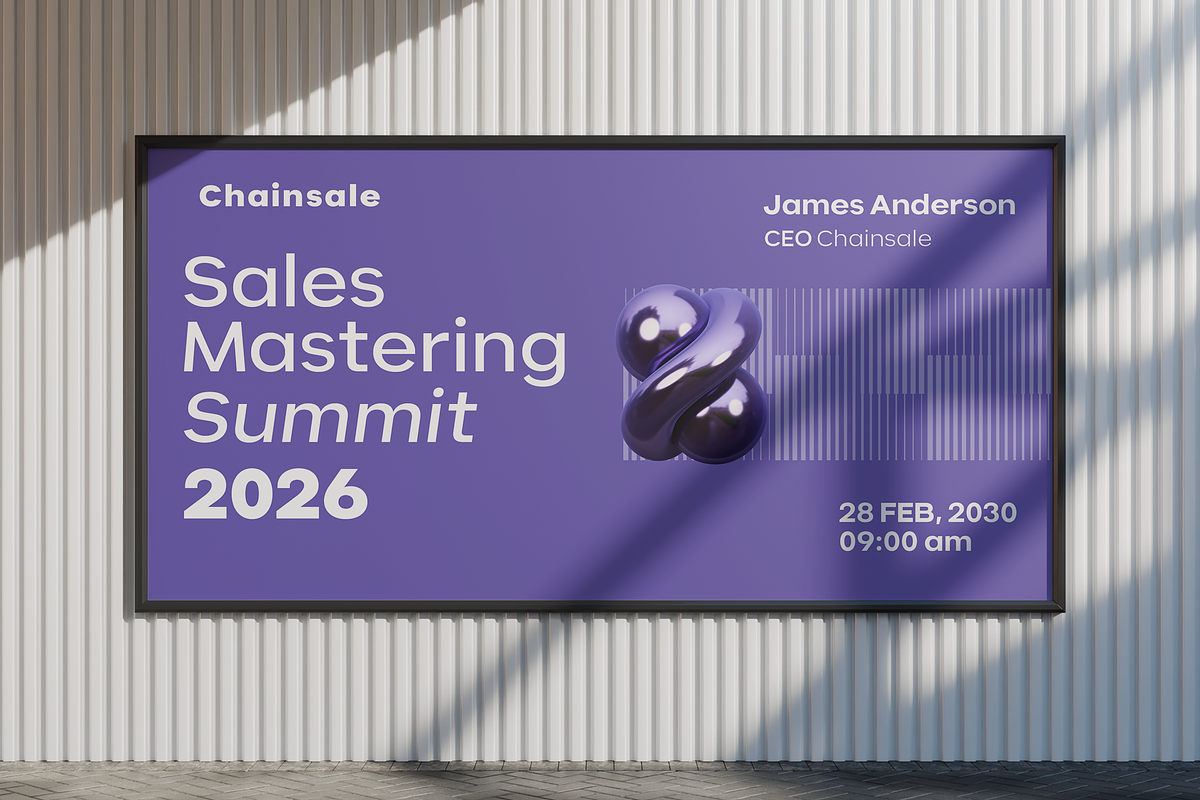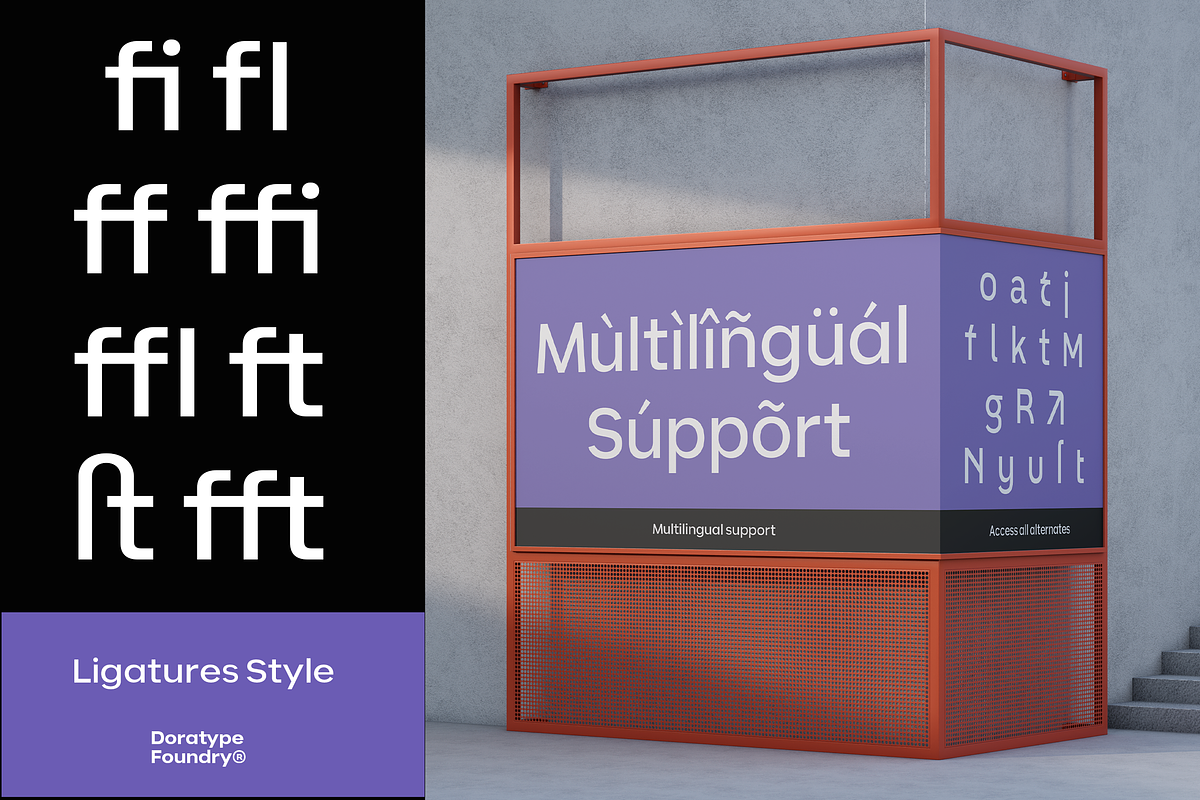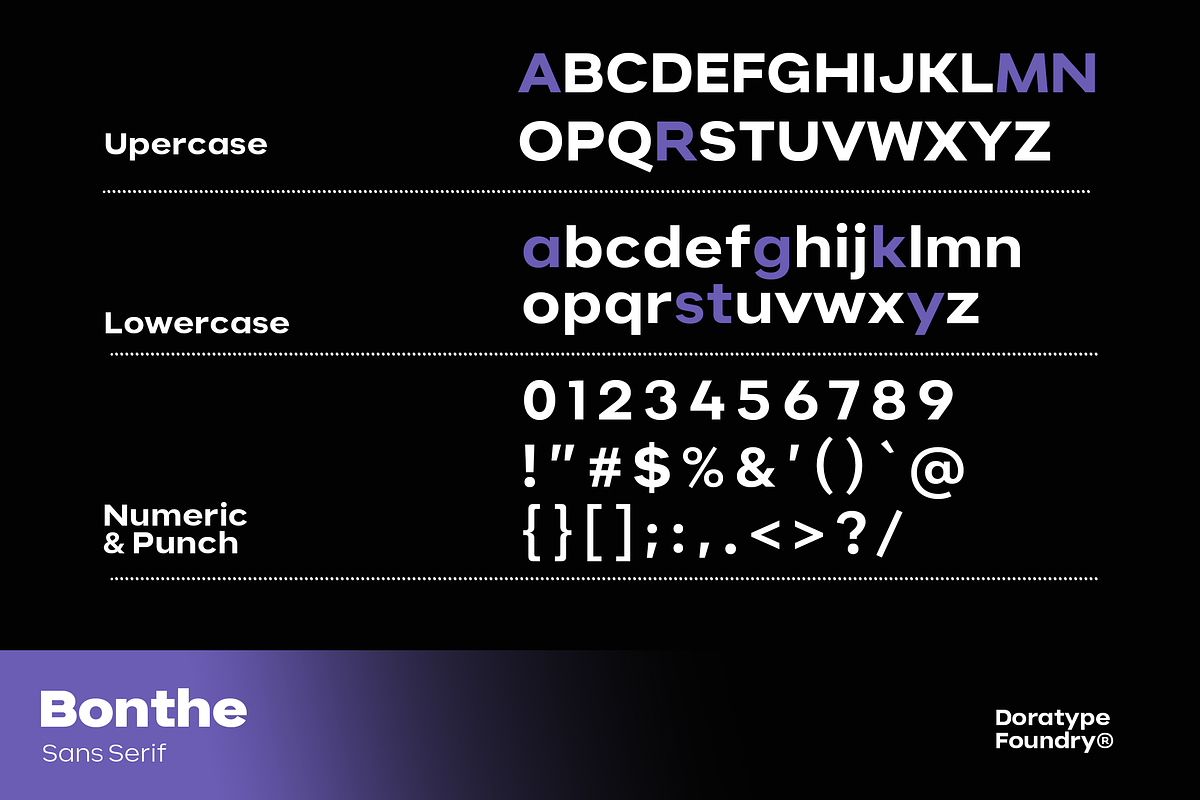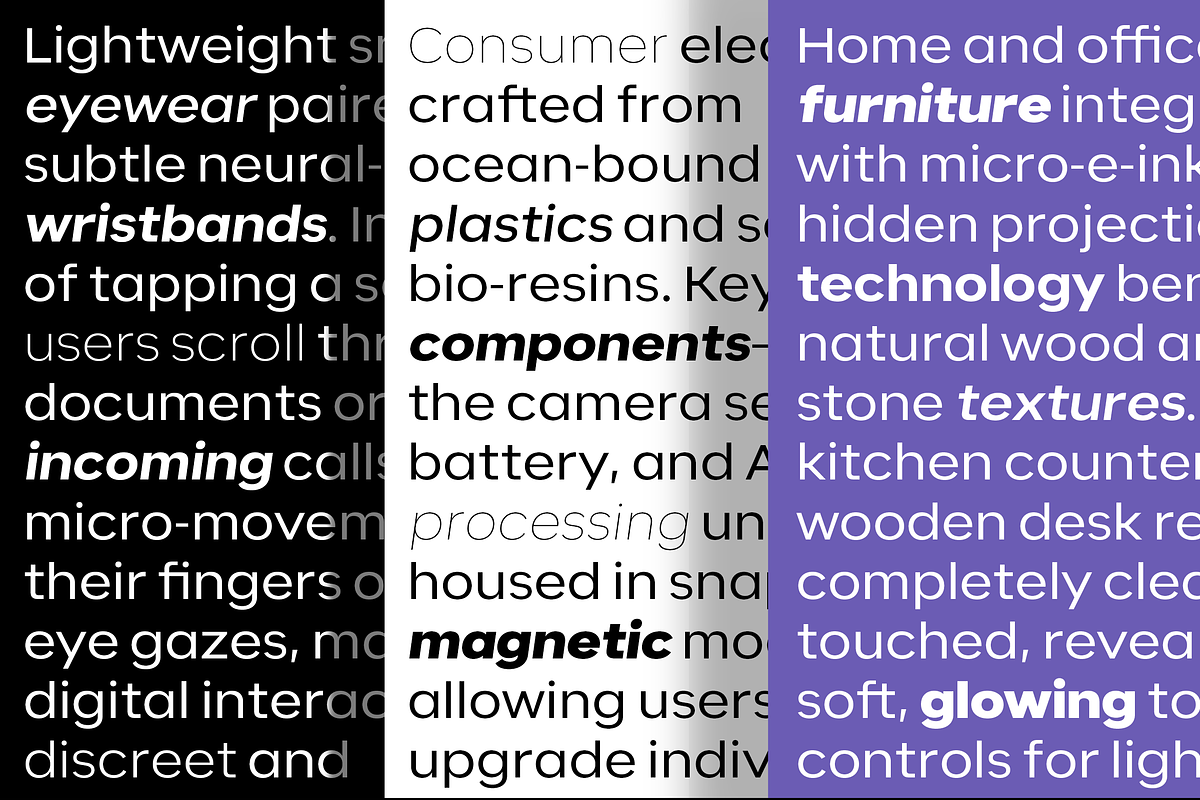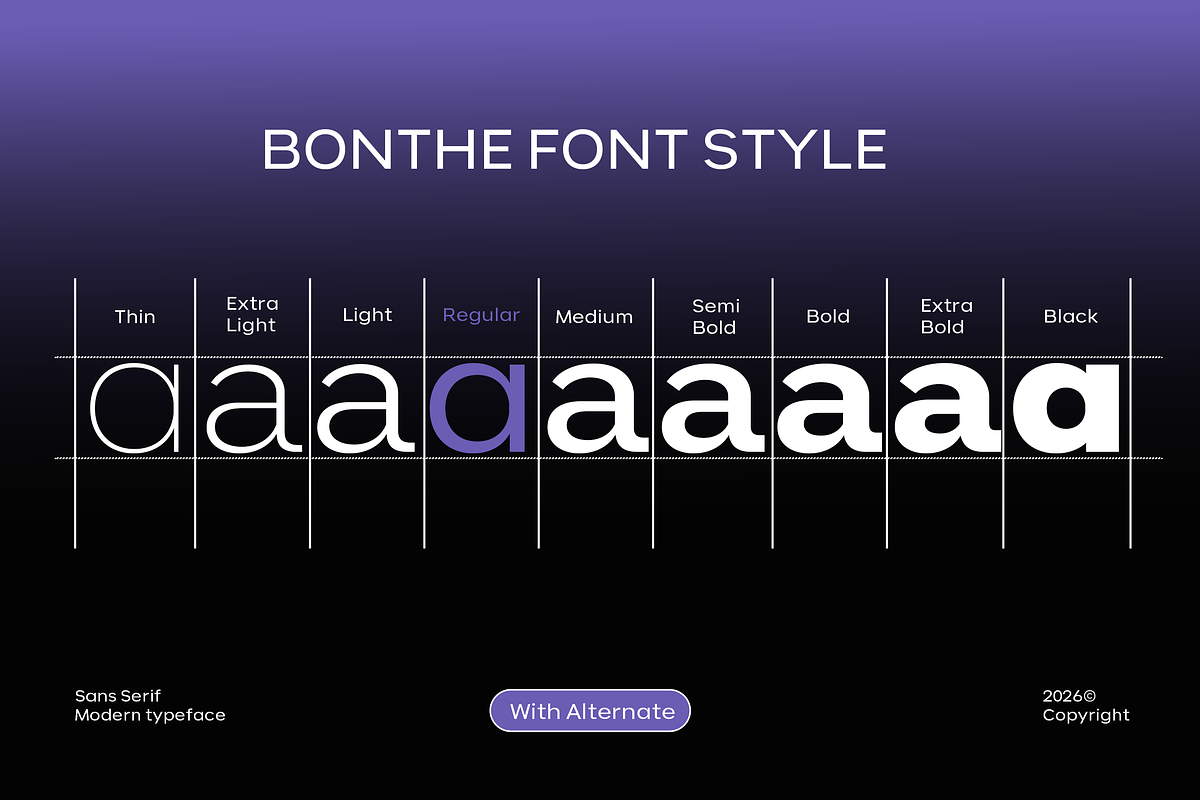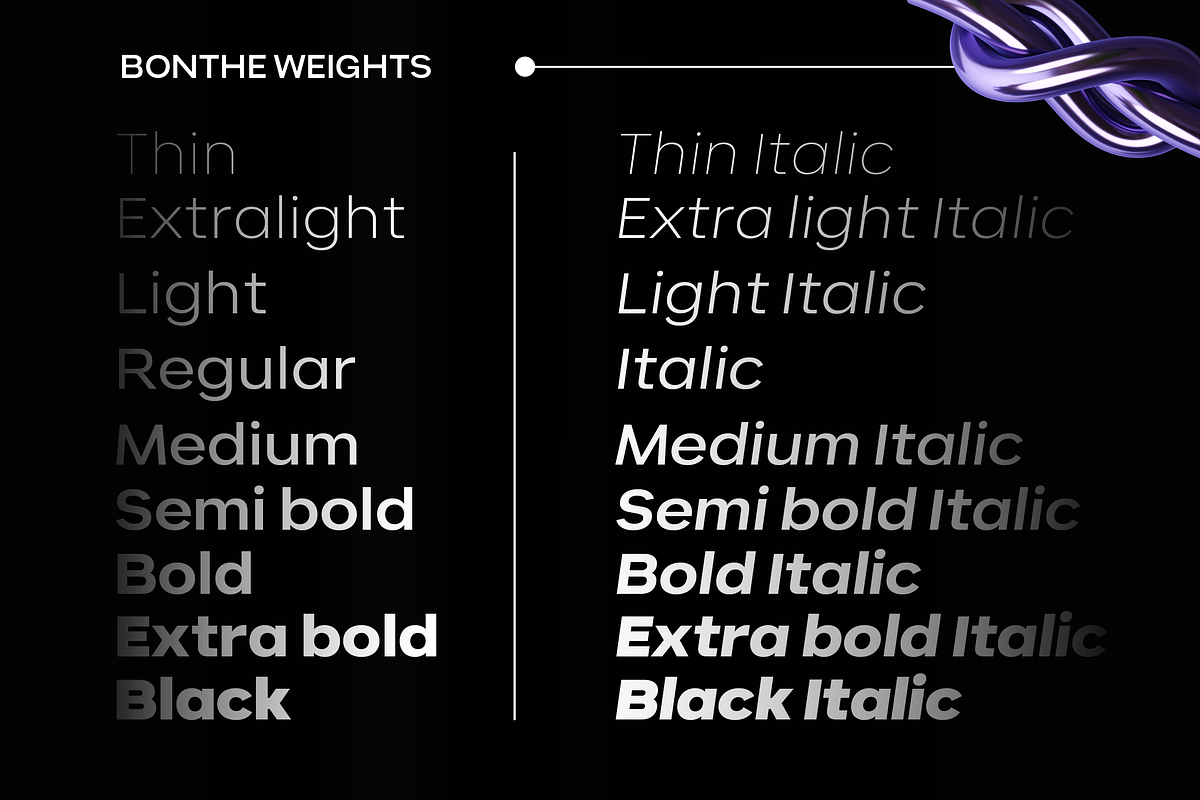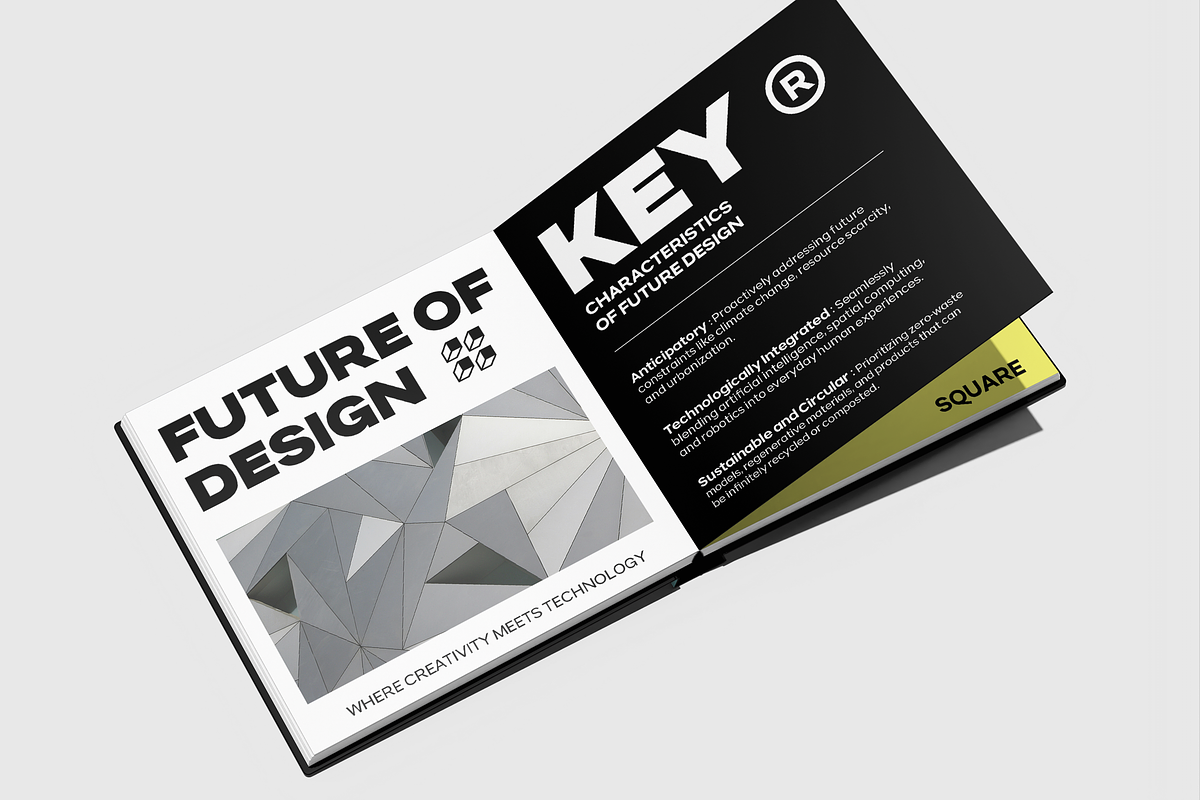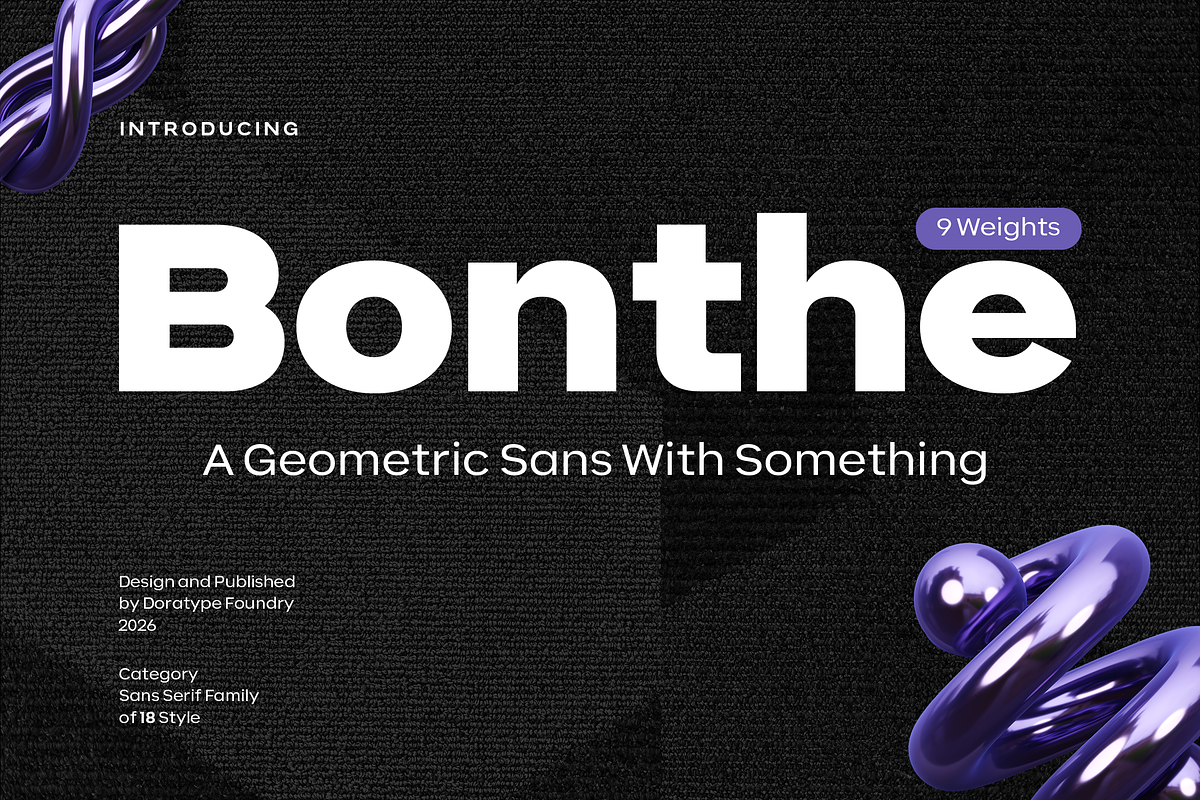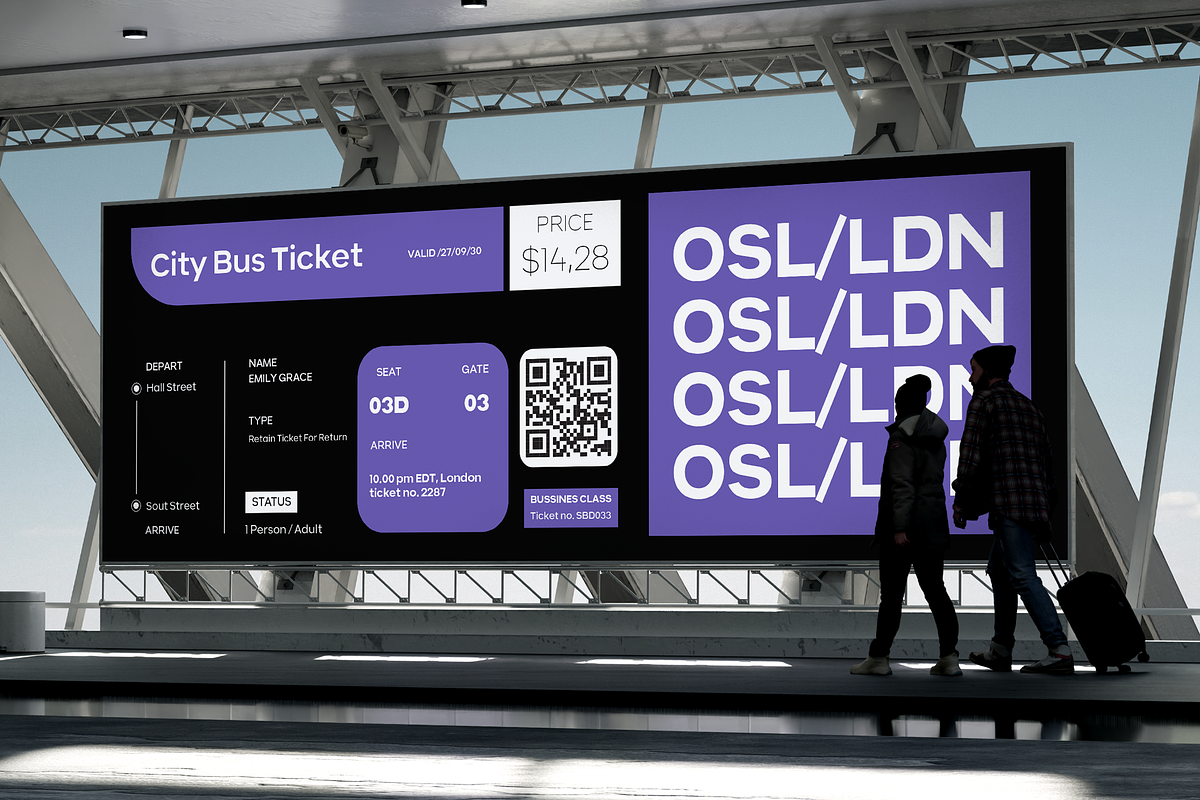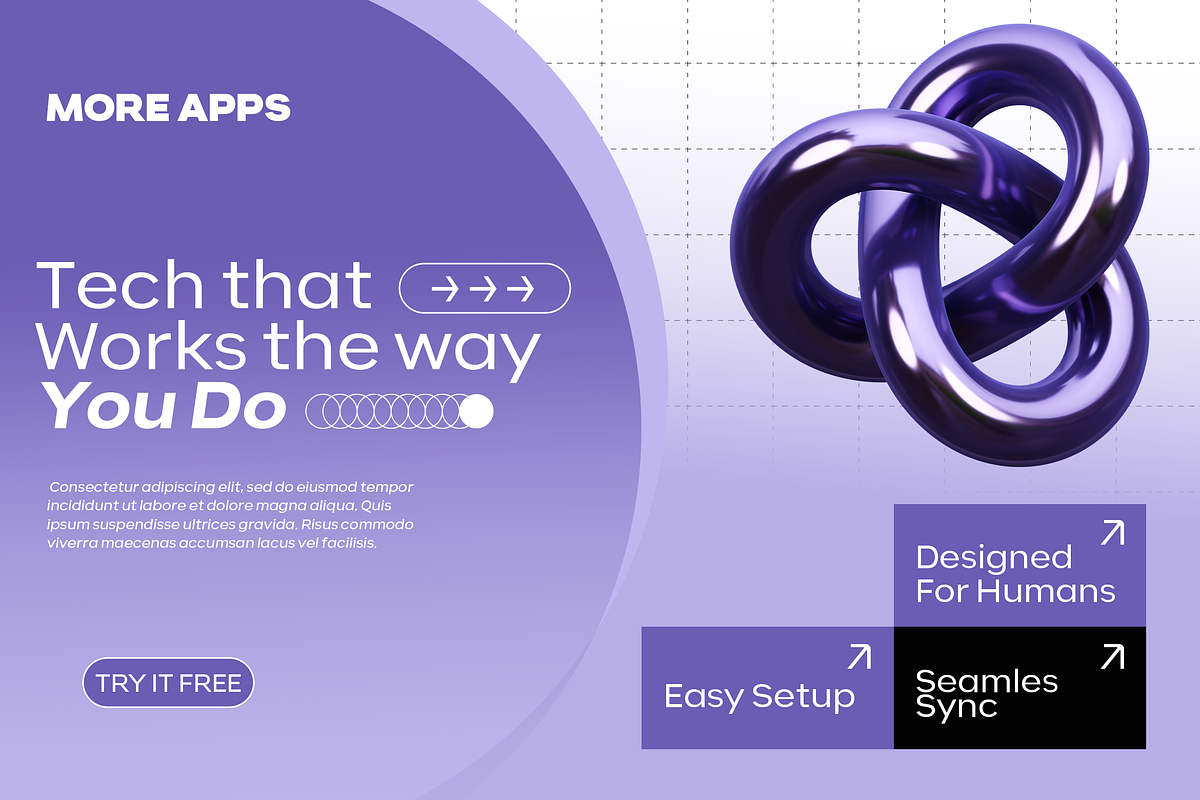
Bonthe - Geometric Sans Family
Bonthe is a geometric sans-serif typeface family designed with a modern, clean, and expressive character. Its letterforms combine bold geometric shapes with balanced proportions, resulting in a strong appearance that remains comfortable to use across various design applications. Its simple, contemporary style conveys professionalism and aligns with current trends in digital design.
With its versatile visual character, it is ideally suited for branding, logos, editorial work, advertising, packaging, posters, headlines, websites, digital applications, and corporate visual identities. Its solid construction allows it to stand out at large sizes, while its clean forms ensure excellent readability for everyday use. Overall, the blend of geometric precision, modern simplicity, and distinctive personality makes it a compelling choice for design projects requiring a professional look with a unique character.